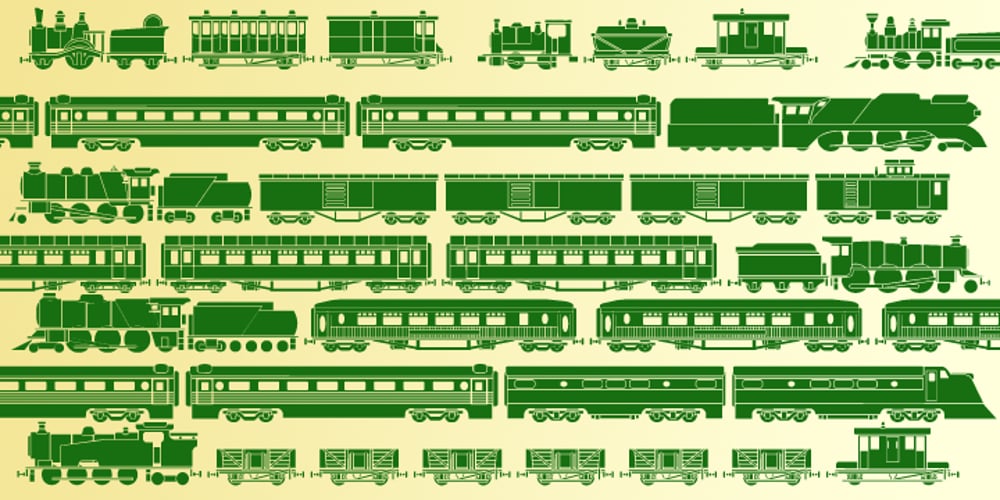
Pardon Me Boy! Font Family was designed by published by Greater Albion Typefounders. Pardon Me Boy! contains 1 styles and family package options. Pardon me boy, is that the Chattanooga Choo-choo? Well, not quite, but “Pardon Me Boy!” is a set of silhouette based ornaments capturing railway locomotives and rolling stock from around the world. Use it to form up trains to make suitable themed rules and borders, or just for fun anywhere a bit of locomotive power will add life and movement!